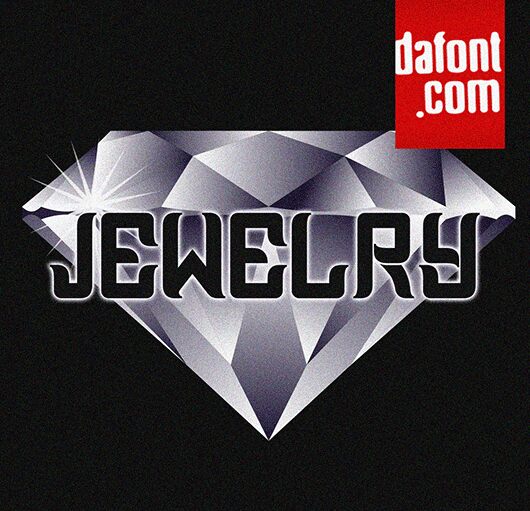
Jewelry Book font by Vladimir Nikolic is a free decorative display typeface with a bold, architectural presence. Its tall, squared forms and tight, upright rhythm feel like letters carved into metal-chunky strokes sliced with sharp inner angles and geometric hollows that catch the eye. The result is a striking mix of retro futurism and industrial luxury, as if sci‑fi credits met a high‑end boutique logo.
Using Jewelry Book, you get a strong visual lockup that holds together even in just a few characters, making it a natural fit for logos, book covers, posters, event titles, packaging, and bold website hero text. This free font loves to be set large, where its cutout details can breathe; pair it with a clean geometric sans for body copy to keep the focus on its sculpted letterforms.